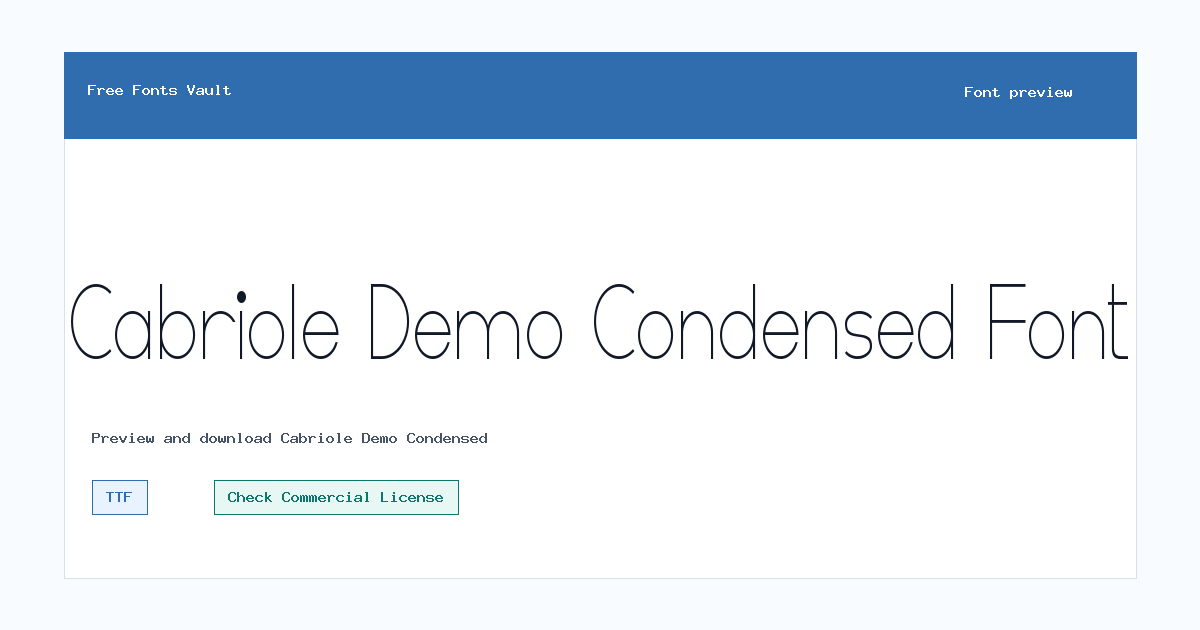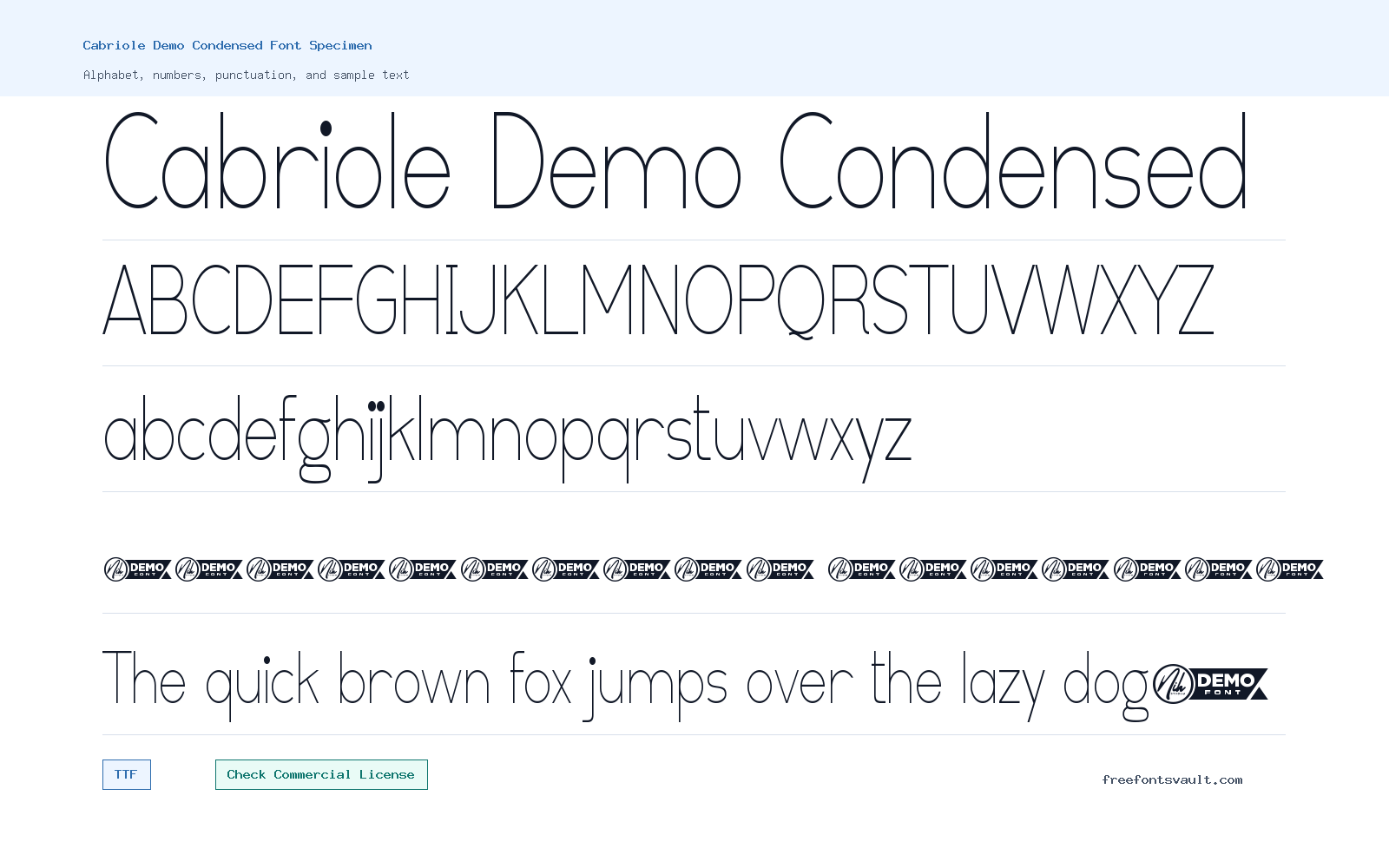
Cabriole Demo Condensed
- Designer Widiyanti & Suci Anita
- Foundry NihStudio
Cabriole Demo Condensed font.
Cabriole Demo Condensed is a narrow display-style font family from NihStudio. It is useful when you want a compact title or short piece of lettering, but its license is limited to personal, non-commercial use.
About Cabriole Demo Condensed
Cabriole Demo Condensed comes as a regular TTF font with normal style and 400 weight. The name points to a condensed design, so it is best treated as a space-saving display face rather than a long-reading text font. Try it in the preview with short words, headings, labels, and poster-style phrases to see how the tighter width affects spacing and readability.
Because this is a demo font, keep your use practical and careful. It can work for personal mockups, hobby graphics, social posts, sample branding ideas, or design tests where a narrow headline style is useful. For body copy, small captions, or dense paragraphs, test another simpler font beside it and check the spacing at the final size.
Cabriole Demo Condensed is a narrow personal-use display font, so it is helpful when a title needs to fit into limited horizontal space while still feeling styled. It can suit personal posters, mood boards, packaging concepts, invitation drafts, quote graphics, and social images where a condensed headline gives the design a taller, more elegant rhythm.
- Condensed family name suggests a narrower layout suited to short display text
- Personal headline tests, mockups, and poster-style wording
- Compact titles, labels, social graphics, and design drafts
Cabriole Demo Condensed is credited to Widiyanti & Suci Anita, with NihStudio listed as the foundry.
What style and weight does this font use?
The listed variant is regular, normal style, with a 400 font weight.
Who designed Cabriole Demo Condensed?
The font is credited to Widiyanti & Suci Anita, and the foundry is listed as NihStudio.
What should I use this font for?
Use it for short personal-use display text such as headings, mockups, labels, and poster-style wording. Test carefully before using it in longer text.